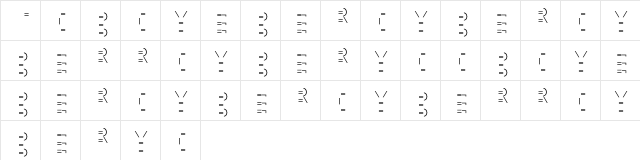
MMMteurs Cyber
Design Context for MMMteurs Typeface
MMMteurs has a distinctly futuristic character, with geometric precision and clean angles that feel at home in technology, gaming, and sci-fi contexts.
Pro Tip: Try MMMteurs with generous letter-spacing in UI labels and navigation — the geometric forms benefit from room to breathe.